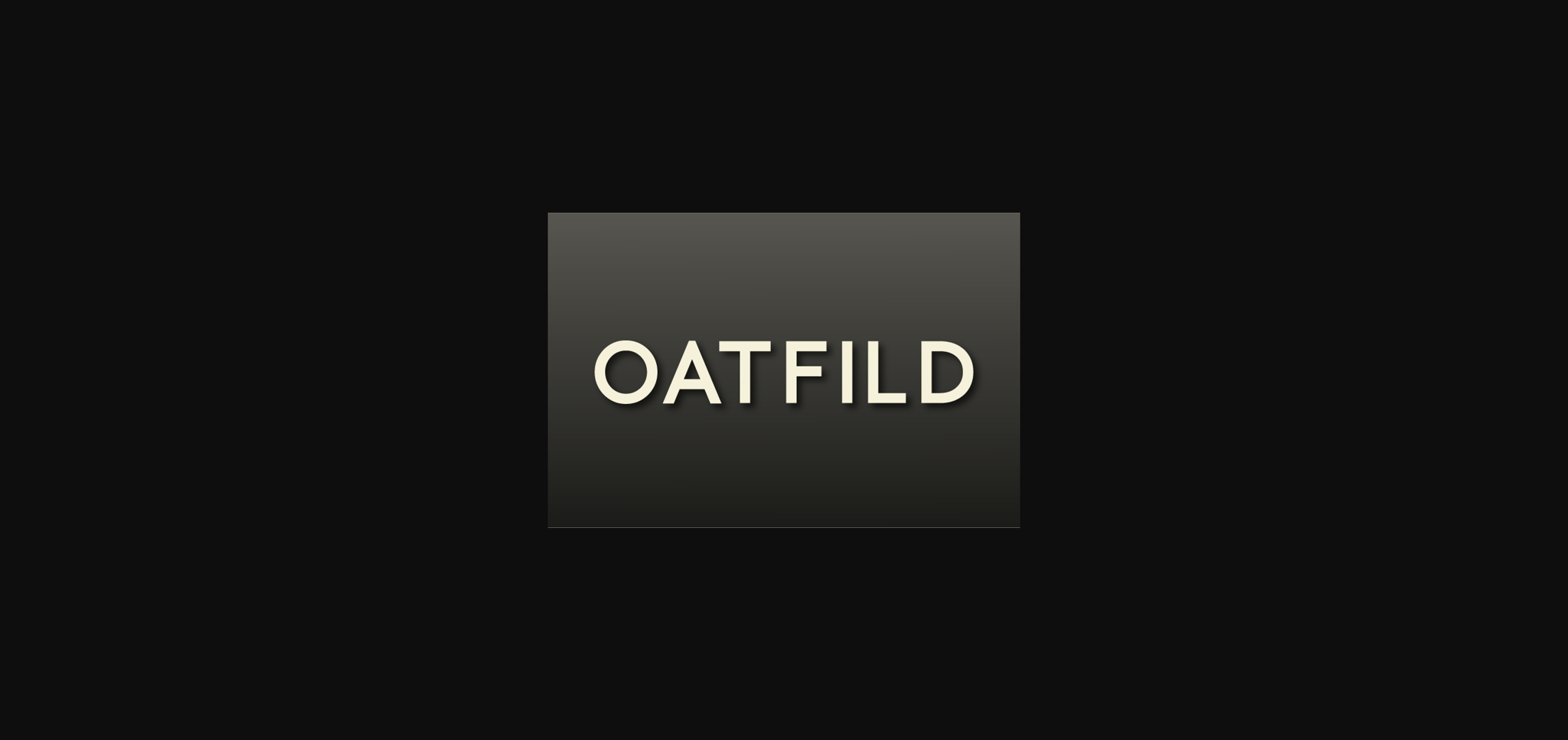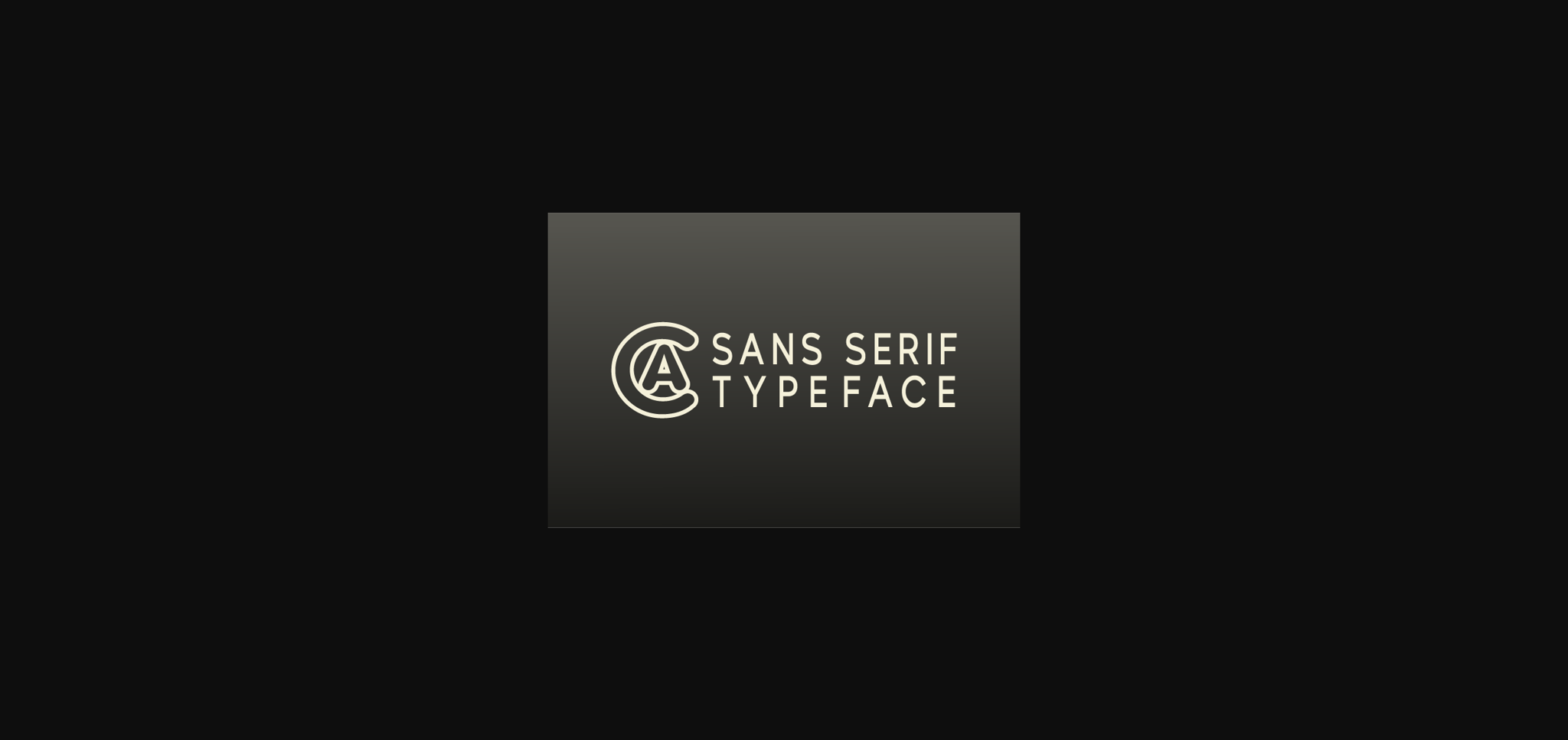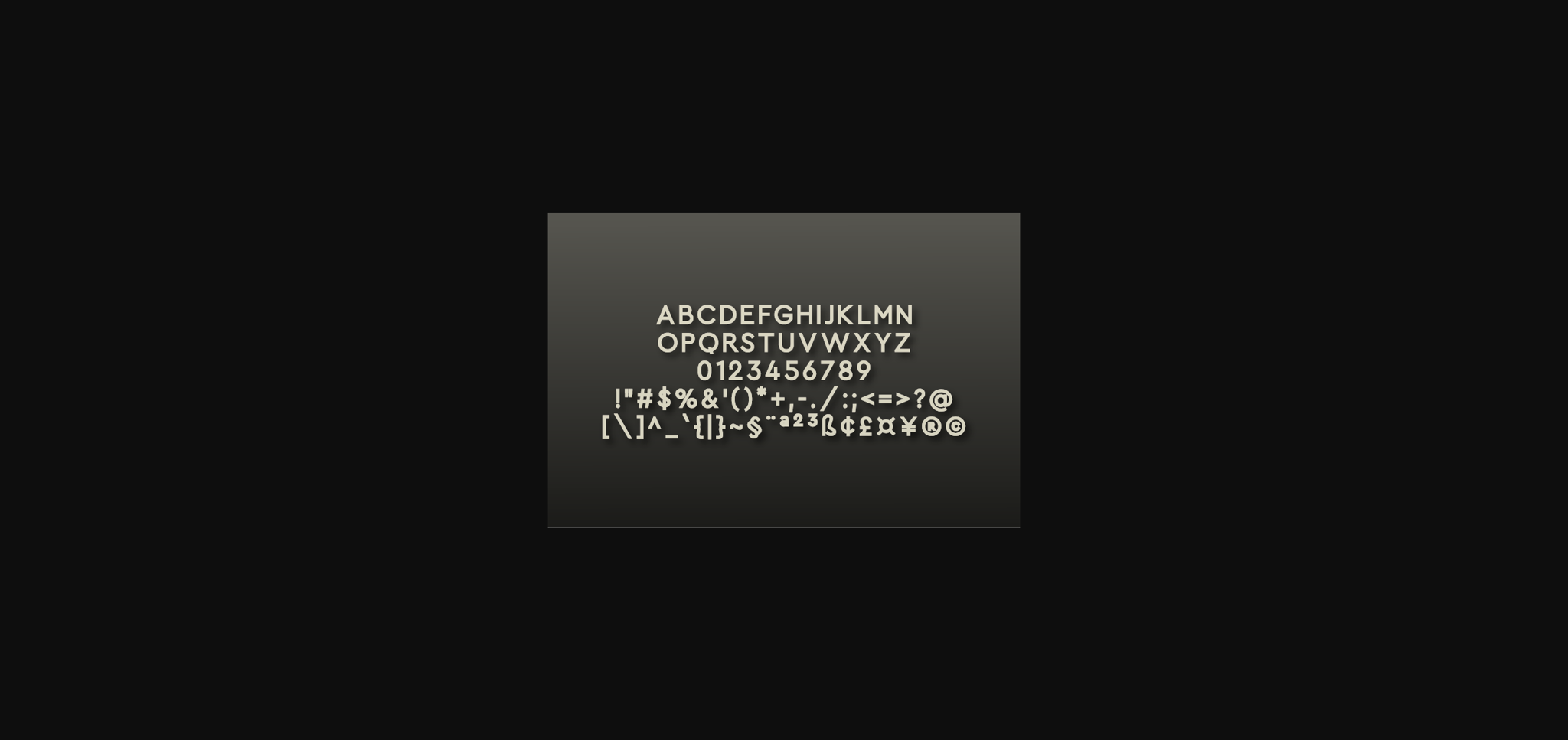
HomeSans Serif FontsOatfild Font Sans Serif Fonts Oatfild Font FacebookXPinterestWhatsApp 1 of 5 ... Oatfild Font Poster 2... Oatfild Font Poster 3... Oatfild Font Poster 4... Oatfild Font Poster 5... About Oatfild Font Oatfild is a round lettered, simple sans serif font. Add this font to your favorite creative ideas and notice how it elevates them to the highest levels! DOWNLOAD NOW People also explored Simple Writing Font Spada Font Marlina Garden Font Parmes Font Candy Xmas Font Winter Rosetta Font Redsea Font Belinda Heylove Font Asolitude Font 559 0 TagsOatfildOatfild Font Previous articleClaudh FontNext articleDutshem Font LEAVE A REPLY Cancel reply Comment: Please enter your comment! Name:* Please enter your name here Email:* You have entered an incorrect email address! Please enter your email address here Website: Save my name, email, and website in this browser for the next time I comment. Personal Use Free Heart Memory Personal Use Free Read more about this font Rare Knuckle Personal Use Free Read more about this font Capellen Personal Use Free Read more about this font Solaria Personal Use Free Read more about this font BLOG Free vs Paid Fonts: Why Investing in Premium Fonts Is Worth It Free vs Paid Fonts: Why Premium Fonts Are Worth It in 2025 The debate of free vs paid fonts continues in the design world. While... Fonts That Capture the Spirit of New York City To increase your work productivity, choose the most readable fonts. 5 Fonts That Will Dominate Design Trends in 2026